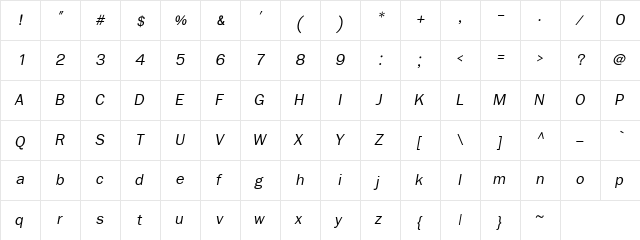
FreesiaUPC Italic Font Preview
FreesiaUPC Italic
FreesiaUPC Italic Font Details
Design Context for FreesiaUPC Typeface
FreesiaUPC is a composed and adaptable typeface that performs quietly and consistently across a wide range of design contexts. The dynamic lean of this cut emphasises speed and emphasis in any layout.
Pro Tip: Try FreesiaUPC for annotation and caption copy alongside an upright companion — the contrast in angle creates a dynamic but ordered typographic system.